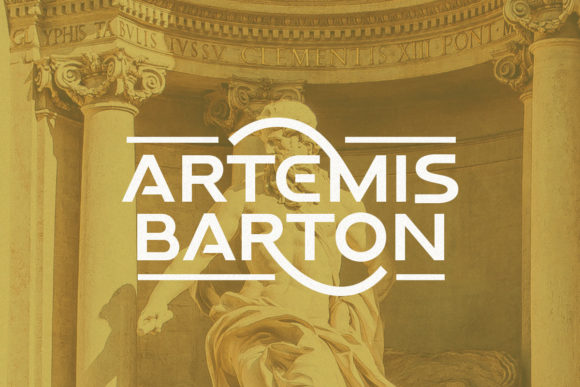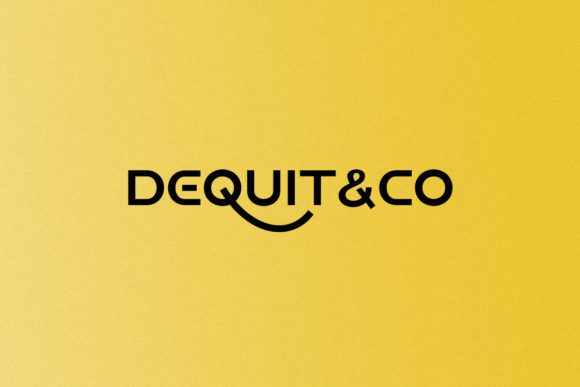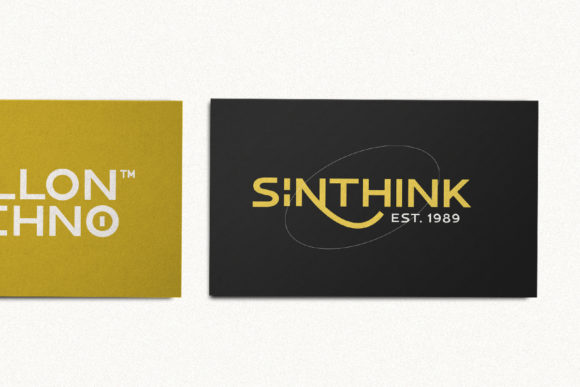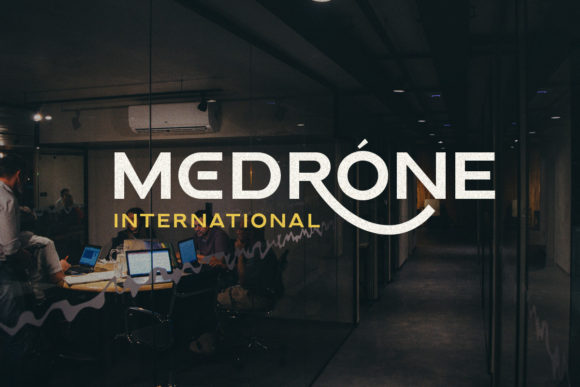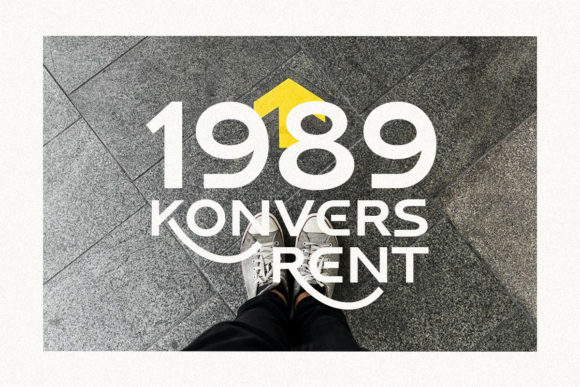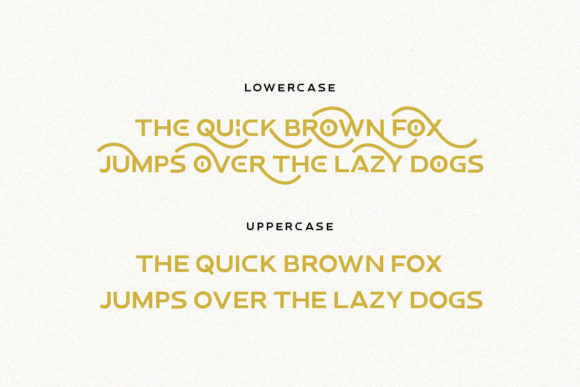
Introduction to Proxemic Font
Remember that moment when you finally landed on the perfect font for your creative project? It’s like a match made in heaven – everything falls into place, and your design instantly becomes more captivating. The Proxemic Font is one of those magical finds that can elevate your design to the next level.
As a designer, you’re constantly on the lookout for that one special element to make your design stand out. And trust us, the Proxemic Font is a game-changer. With its sleek, modern design and transparent background, it’s a high-quality resource that’s sure to impress. Plus, it’s a free download, making it an accessible design resource for any creative project.
- Unique, creative font style ideal for use in headings, titles, and other prominent design elements.
Honest Review: Proxemic Font
I recently stumbled upon the Proxemic Font, and I’m excited to share my thoughts on this design resource. As a designer, I’m always on the lookout for high-quality fonts that can elevate my creative projects.
One thing that stands out about the Proxemic Font is its unique design. The font has a transparent background, which makes it versatile and easy to use in various design contexts. I appreciate how the font’s subtle texture adds a touch of sophistication to any project.
- ✨ High-quality design: The Proxemic Font is meticulously crafted, making it a great addition to any design project.
- ✨ Versatile: The font’s transparent background and subtle texture make it suitable for various design applications.
- ⚠️ Limited character set: The font only includes a limited set of characters, which may not be sufficient for some design projects.
- ⚠️ Not ideal for small text: The font’s texture and design may not be suitable for small text sizes, which can make it difficult to read.
Overall, I’m impressed with the Proxemic Font, but I do wish it had a more comprehensive character set. Despite this, it’s still a great addition to any design library, and I’d recommend it to designers looking for a unique and high-quality font.
Proxemic Font
The Proxemic Font is a unique design resource that allows you to add depth and dimension to your creative projects. This high-quality font features a transparent background, making it perfect for overlaying on images or backgrounds.
The Proxemic Font is commonly used in creative projects such as logos, branding materials, and infographics. It’s also useful for adding a touch of sophistication to presentations and reports. With its high-quality design and transparent background, the Proxemic Font is a versatile design resource that can be used in a variety of applications.